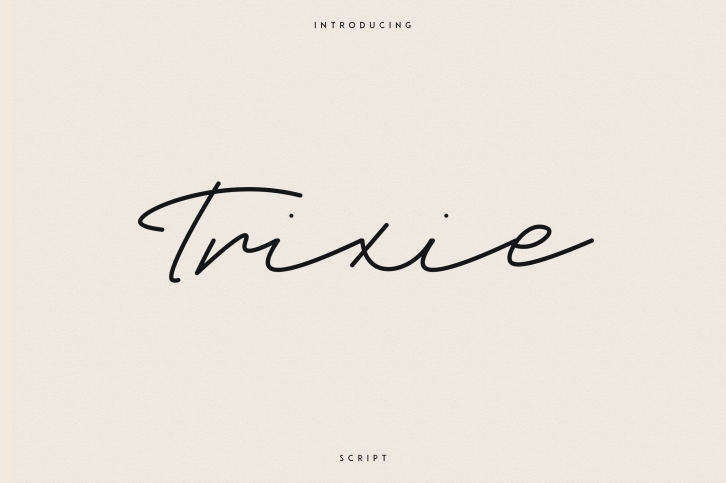
Trixie Script is a beautiful font that was designed by VPcreativeshop. It's a great choice for designers and creatives who need such a font. It was released on November 6, 2018 and the file size is 4.13 MB. Trixie Script may give a more youthful, expressive and casual look to your project. It is a very beautiful, refined, elegant, and high-quality font.